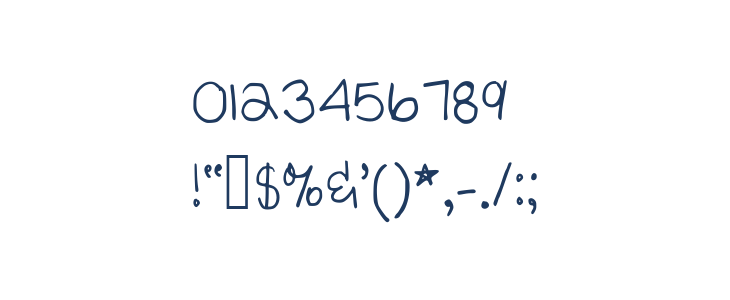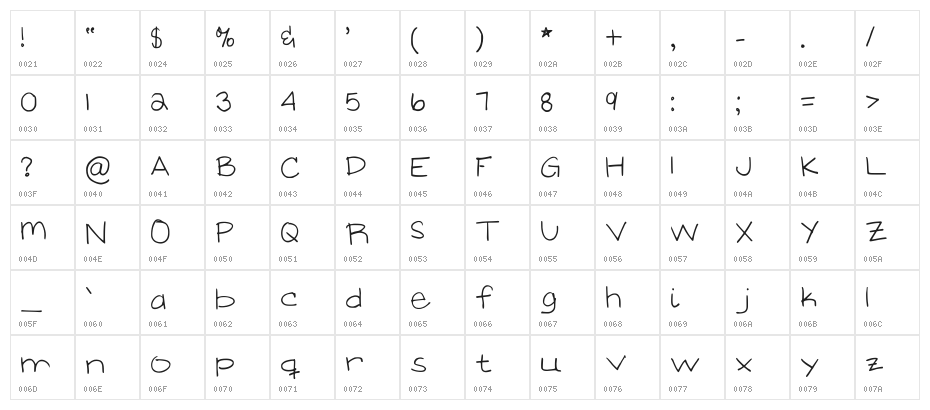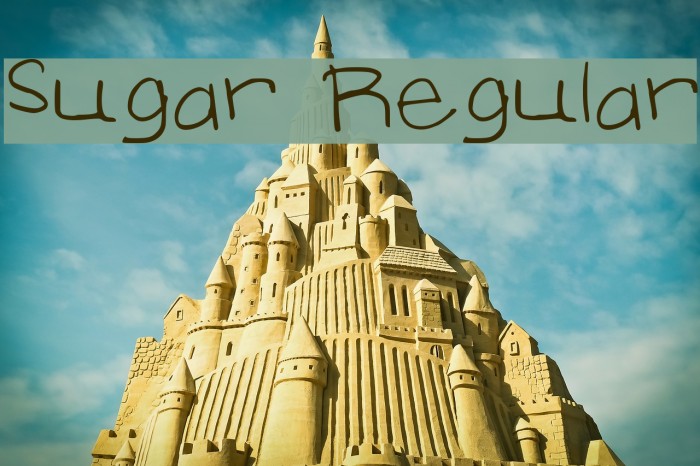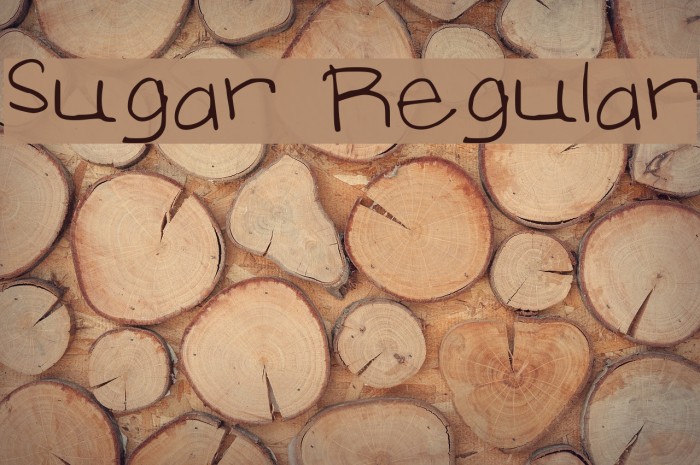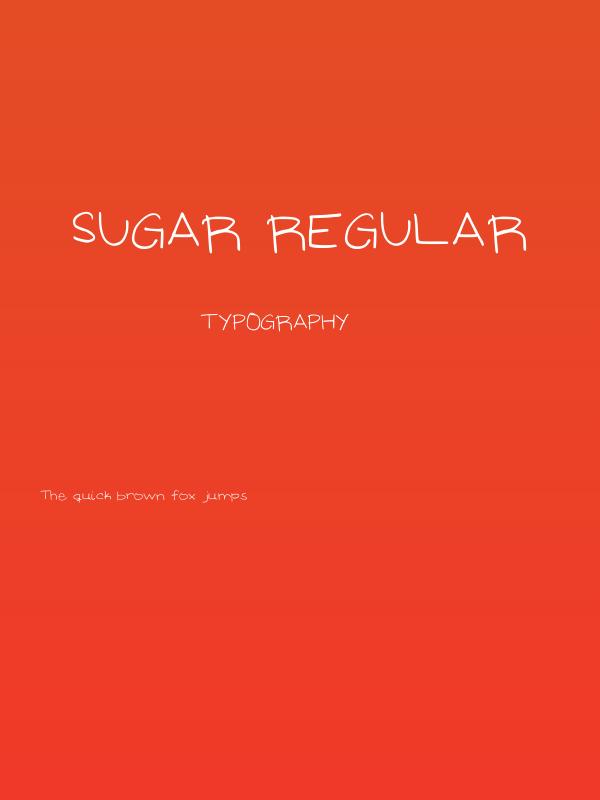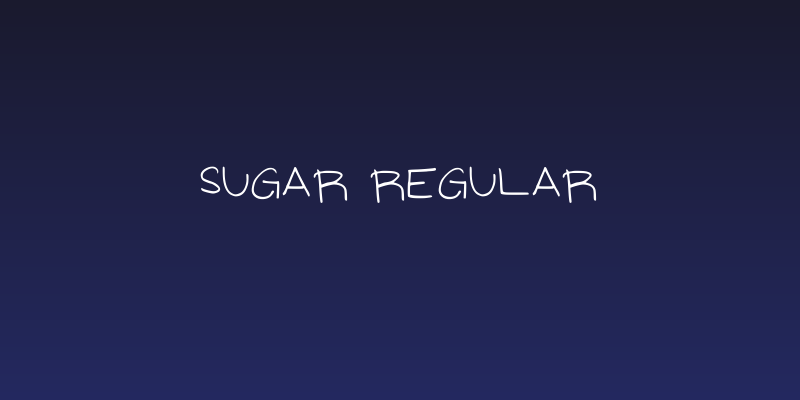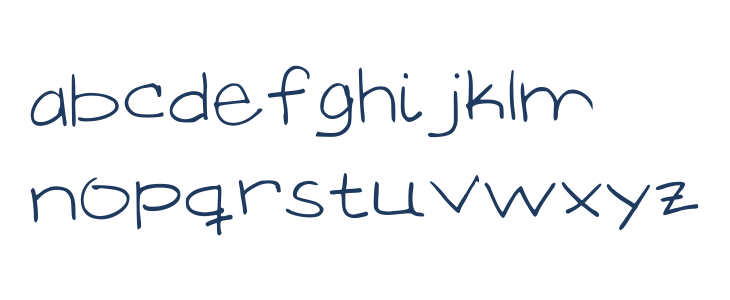
Sugar Regular Font
Sugar Regular Description
This font exudes a playful and casual vibe with its handwritten style. The letters are slightly irregular, giving it a personal and informal touch. The strokes are smooth and rounded, which adds to its approachable and friendly appearance. The characters are well-spaced, ensuring readability while maintaining a relaxed feel. This font is versatile, suitable for projects that require a touch of whimsy and creativity. Its unique style makes it stand out, perfect for designs that aim to convey warmth and personality.
| Overall Style | Casual, Playful |
| Use Case | Headlines, Informal text, Creative projects |
| Proposed Projects | Ideal for greeting cards, children's books, casual invitations, and playful branding. |